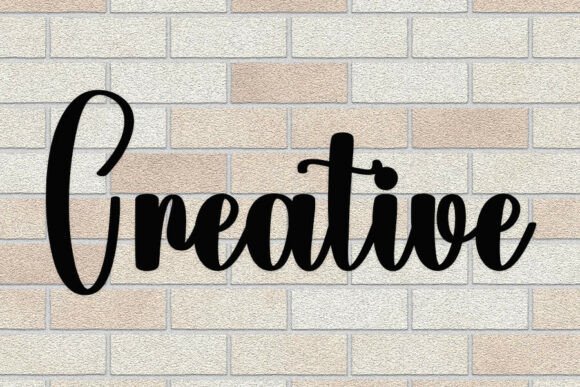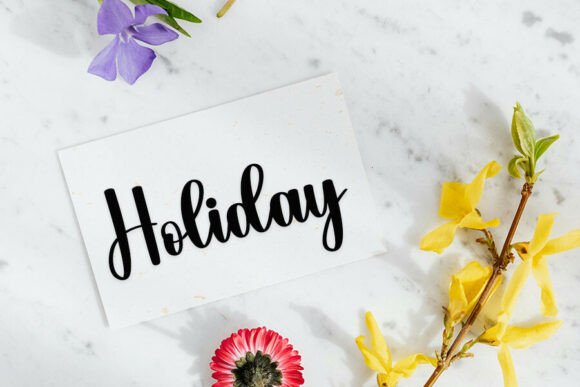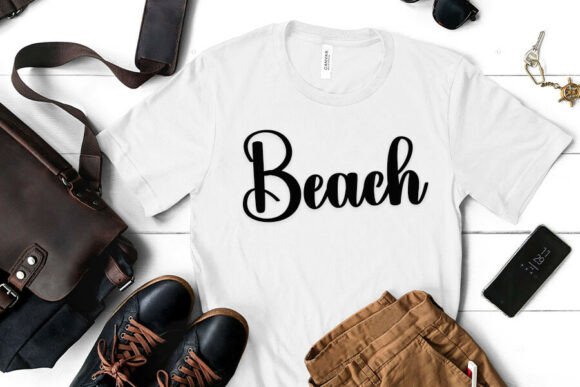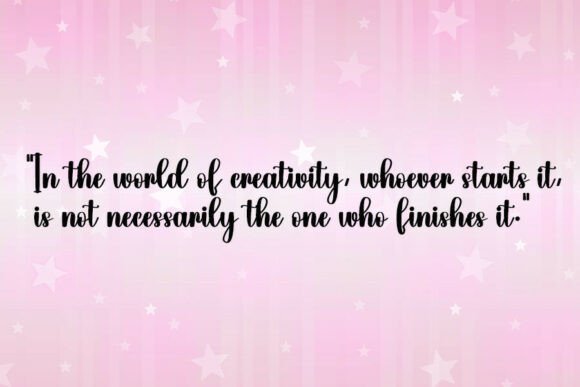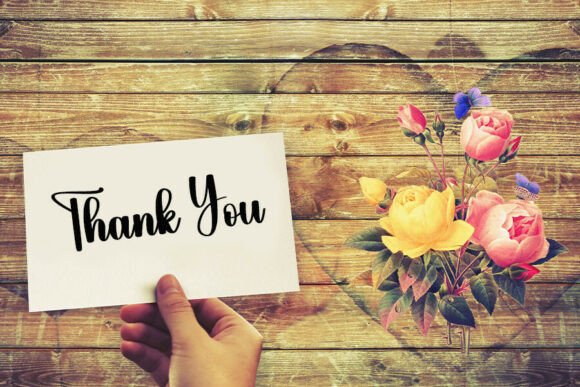
Biscuits Font: A Delicate Handwritten Font for Unique Designs
In the world of typography, a font can make all the difference in creating a unique and visually appealing design. For designers and crafters looking for a special touch, Biscuits Font is a delicate handwritten font that is carefully crafted to add a cool and distinctive element to various design projects. In this article, we’ll explore the features and uses of Biscuits Font, and why it’s a great addition to your typography collection.
What is Biscuits Font?
Biscuits Font is a beautiful, handwritten font designed to bring a touch of elegance and whimsy to your designs. Its delicate strokes and carefully crafted letters make it perfect for creating unique and eye-catching text. Whether you’re working on a letter, invitation, food product label, or title, Biscuits Font is an excellent choice.
Features of Biscuits Font
- Handwritten style: Biscuits Font boasts a beautiful, handwritten style that adds a personal touch to your designs.
- Delicate strokes: The font features delicate strokes that give it a light and airy feel, perfect for creating elegant designs.
- Unique design: Biscuits Font is carefully crafted to provide a unique and distinctive look that sets it apart from other fonts.
- Versatile: This font can be used for a wide range of design projects, from letters and invitations to food product labels and titles.
Uses of Biscuits Font
Biscuits Font is an incredibly versatile font that can be used in various design projects. Here are some ideas to get you started:
- Letters and invitations: Add a personal touch to your letters and invitations with Biscuits Font’s elegant handwritten style.
- Food product labels: Use Biscuits Font to create eye-catching labels for your food products, such as baked goods, candies, or specialty foods.
- Titles and headings: Add a touch of elegance to your titles and headings with Biscuits Font’s delicate strokes and unique design.
- Branding and packaging: Use Biscuits Font to create a distinctive brand identity for your business or product.
Why Choose Biscuits Font?
With so many fonts available, why choose Biscuits Font? Here are a few reasons why designers and crafters love this font:
- Unique and distinctive: Biscuits Font offers a unique and distinctive look that sets it apart from other fonts.
- Elegant and sophisticated: The font’s delicate strokes and handwritten style give it an elegant and sophisticated feel.
- Easy to read: Despite its delicate nature, Biscuits Font is easy to read, making it perfect for body text and headings.
- High-quality design: Biscuits Font is carefully crafted to provide a high-quality design that will elevate your projects.
Tips for Using Biscuits Font
To get the most out of Biscuits Font, here are a few tips to keep in mind:
- Use it sparingly: Biscuits Font is a delicate font, so use it sparingly to avoid overwhelming your design.
- Pair it with other fonts: Experiment with pairing Biscuits Font with other fonts to create a unique and visually appealing design.
- Adjust the size and color: Play around with different sizes and colors to find the perfect combination for your design.
Biscuits Font is a beautiful, delicate handwritten font that is perfect for designers and crafters looking to add a unique touch to their designs. With its elegant strokes, unique design, and versatility, Biscuits Font is an excellent addition to any typography collection. Whether you’re working on a letter, invitation, food product label, or title, Biscuits Font is sure to elevate your project and make it stand out.